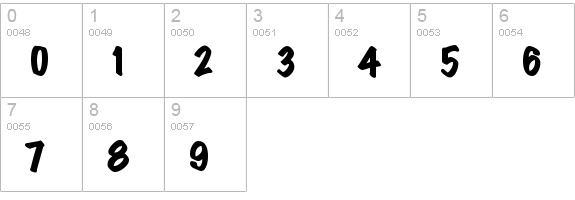
MarkingPenHeavy Regular Font Details
MarkingPenHeavy Regular is the standard, neutral variant in the MarkingPenHeavy typeface family \xE2\x80\x94 well suited to general body text, paragraphs, and standard typographic work.
Introducing MarkingPenHeavy Regular, a bold and impactful font that effortlessly commands attention. With its strong and confident strokes, this font is perfect for making a statement and leaving a lasting impression. Whether you're designing a poster, creating eye-catching headlines, or simply looking to add a touch of boldness to your projects, MarkingPenHeavy Regular has got you covered. This font is not only visually striking but also offers a sense of versatility. Its thick and heavy design allows it to stand out on various backgrounds, making it suitable for both dark and light color schemes. The well-defined lines and distinct letterforms ensure legibility, even at smaller sizes. What's even more exciting is that MarkingPenHeavy Regular is available for free download at FontsMarket.com. Yes, you read that right - this exceptional font can be yours without spending a dime. Simply head over to FontsMarket.com and start exploring the vast possibilities that MarkingPenHeavy Regular has to offer. Don't miss out on the opportunity to enhance your designs with this remarkable font. Download MarkingPenHeavy Regular today and let your creativity flow freely.